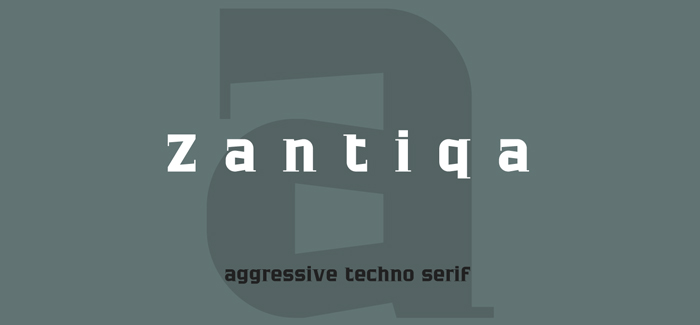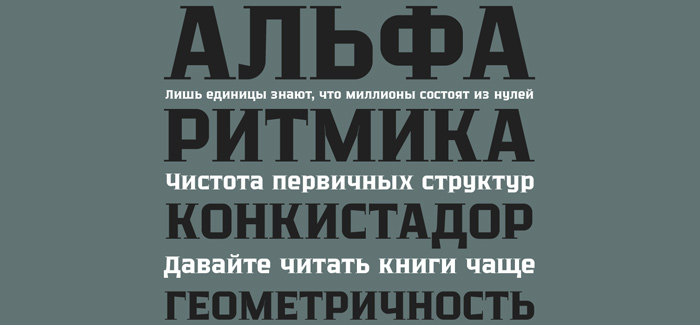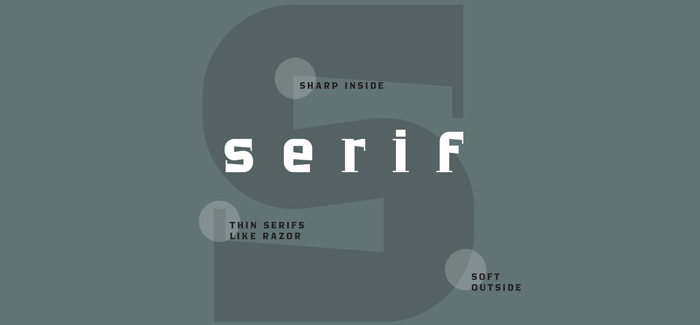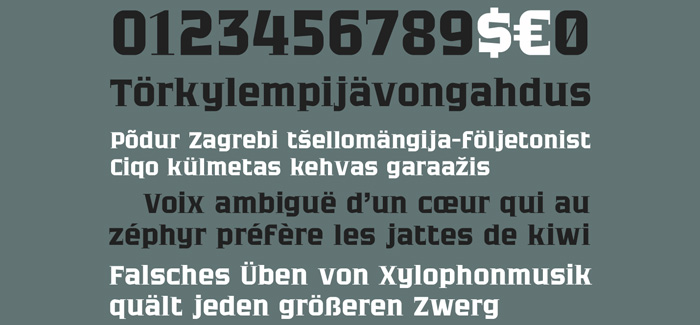
Zantiqa font by 4th february
Zantiqa font by 4th february is the latest work by Sergey Tkachenko. Zantiqa is a high contrast bold typeface with very versatile use in headlines, logos, posters or book & magazine covers. It is designed with very specific geometric serifs which are a little more wider than expected and thus create the illusion of two horizontal lines – one above and another below the word. Another great feature is the belance between inner an outer shape of the glyph – inner parts are rectangular while outer are always rounded. Zantiqa is font with great personality and a lot of potential in use and we also expect to see it developed in multi-weight font family and reveal its true power. Supports western and cyrilic diacritics and excellent cyrillic alphabet. Excellent choice to improve your identity in only 19 bucks!